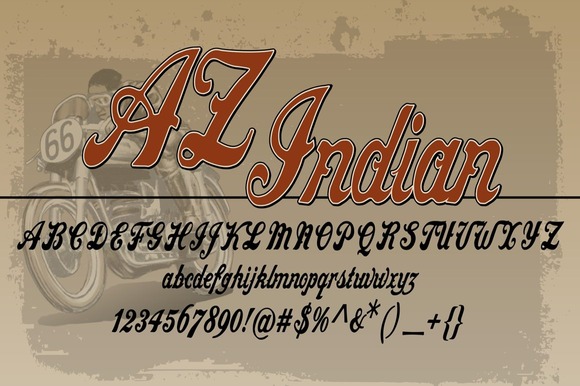
This font is inspired by the original Indian Motorcycle logo from the 1900’s.
The AZ Indian font has a very retro and vintage look and feel to it, great when you want to create designs with a unique antique look and feel.